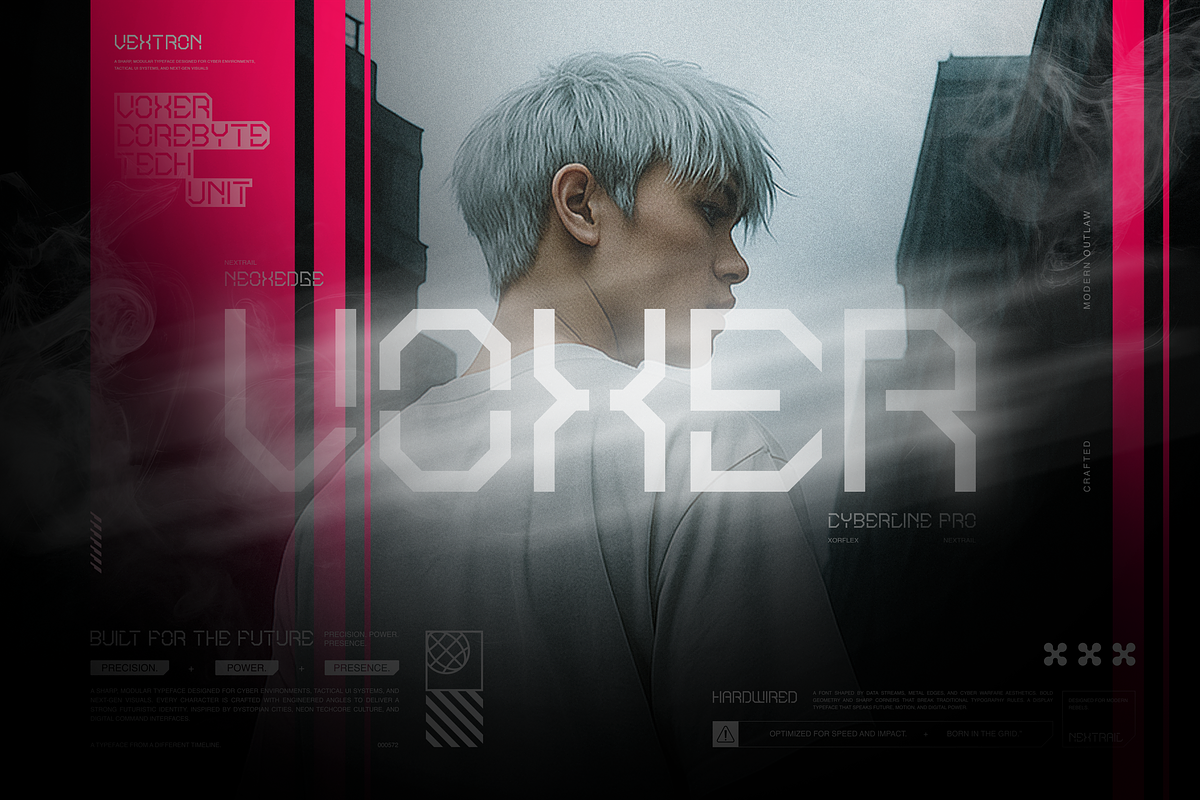
VOXER – Futuristic Cyber Tech
VOXER – Futuristic Cyber Tech Display
VOXER is a futuristic cyber–tech display typeface built with sharp geometry, engineered angles, and a bold digital structure. Designed for creators who want to deliver visuals with modern sci-fi attitude, this font brings the perfect balance between tactical precision and high-impact styling.
Every character is constructed with a modular, mechanical approach, giving the font a distinctive techwear, cyberpunk, and digital-system identity. Its strong shapes make it ideal for apparel branding, gaming graphics, UI elements, posters, music covers, esport identity, streetwear visuals, and futuristic interfaces.
VOXER is inspired by dystopian cityscapes, neon-lit environments, data grids, industrial signage, and coded command screens. With its unique combination of rigid structure and modern edge, this font transforms any text into a powerful visual signal ready for the world of tomorrow.
Perfect for designers who need a typeface that speaks: future, innovation, power, discipline, and speed.
- Perfect for Titles, Logos & Display Use
- Recommended for 3D, Glitch, Holographic, Neon, Techwear Styles
PERFECT FOR
- Techwear Branding
- Gaming Logos
- Cyberpunk Posters
- Futuristic UI / HUD
- Clothing & Streetwear Prints
- Album Covers
- Esport Identity
- Digital Product Design
- Movie Titles
- Sci-Fi Editorial Graphics
FEATURE HIGHLIGHTS
- Cyber-Inspired Geometry – Sharp modular construction for a strong futuristic presence.
- Techno Display Energy – Designed for maximum visual impact.
- Engineered Precision – Clean lines and structured spacing for modern minimalist layouts.
- Sci-Fi Atmosphere – Built for dystopian visuals, neon vibes, and tactical design.
- Versatile for Modern Creators – Works well in large display settings or digital interfaces.